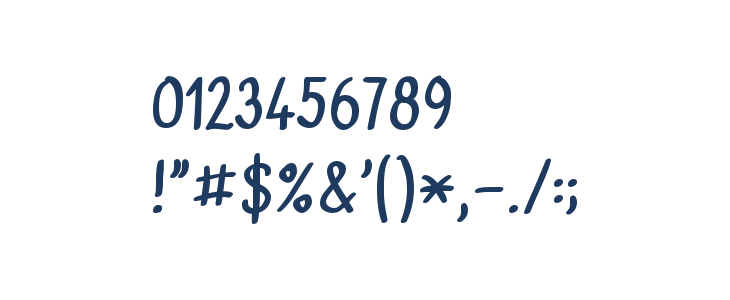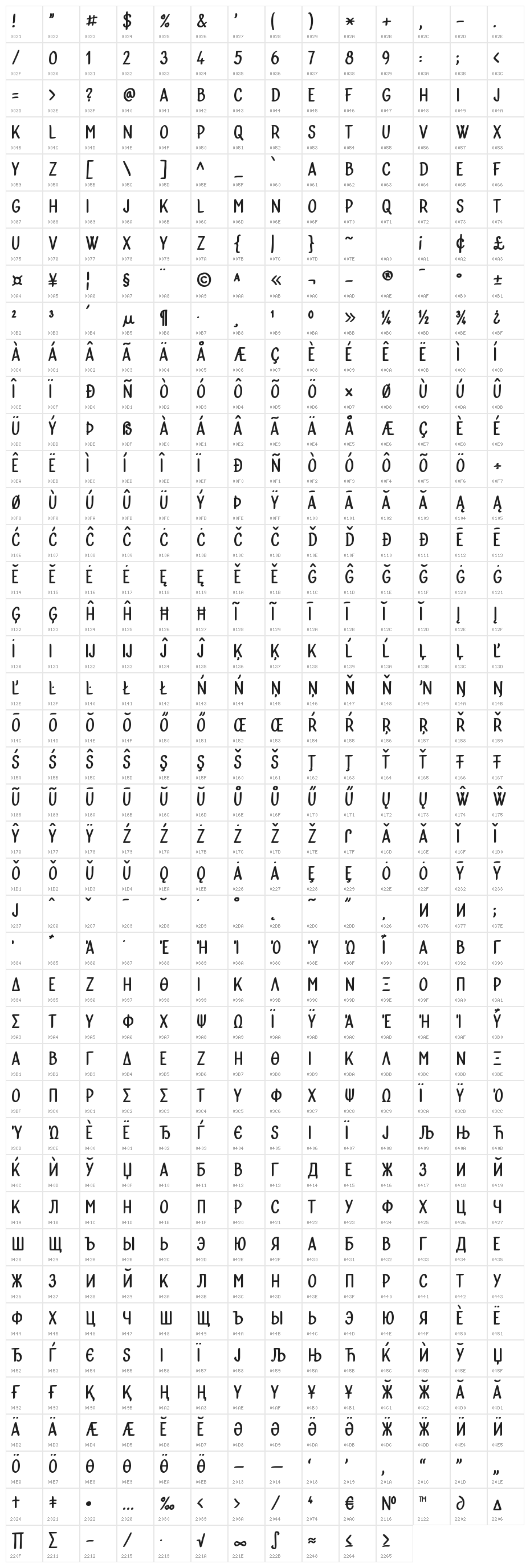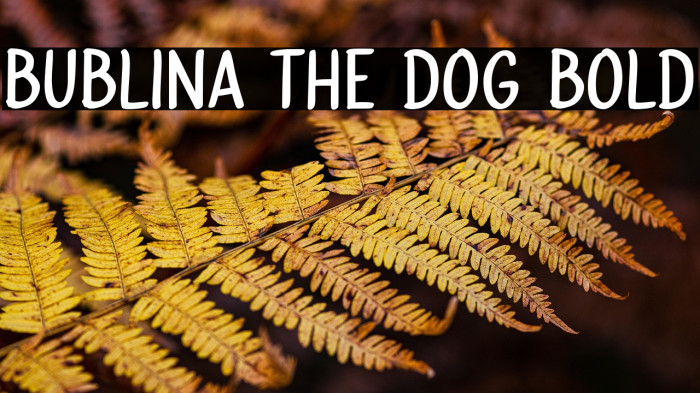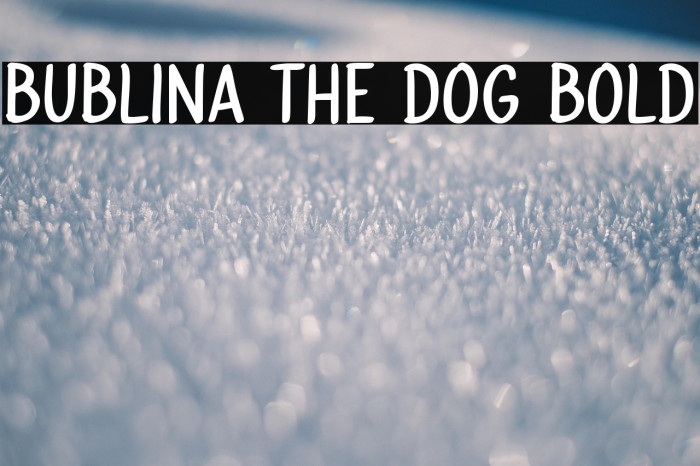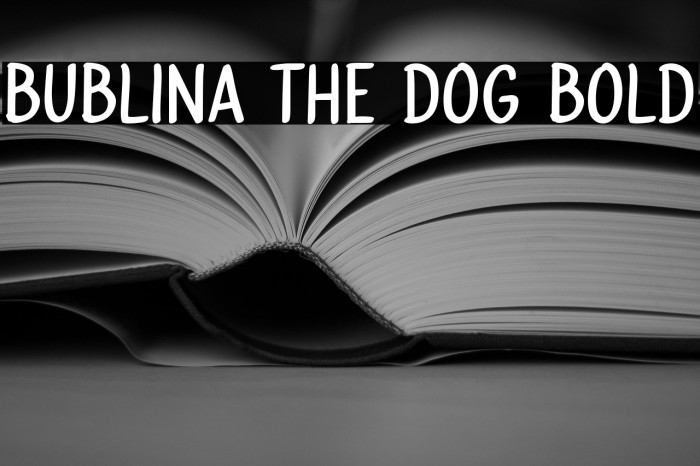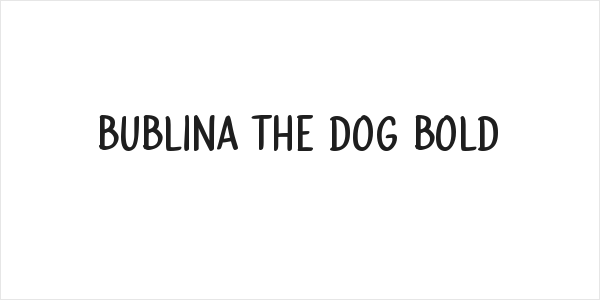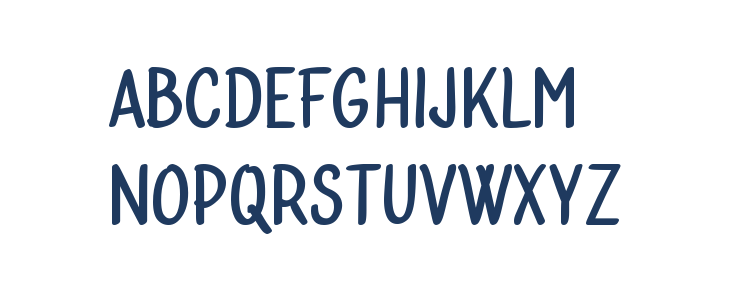
Bublina the Dog Bold Font
Bublina the Dog Bold Description
This font features a playful and bold style with rounded edges and a hand-drawn appearance. The characters are slightly irregular, giving it a casual and friendly look. The uppercase and lowercase letters maintain a consistent weight, providing a cohesive feel across the alphabet. Numbers and special characters are designed with the same playful aesthetic, making them suitable for informal and creative projects. The overall design is approachable and versatile, ideal for adding a touch of personality to any text.
| Proposed Projects | Ideal for children's books, playful branding, casual invitations, and creative posters. |